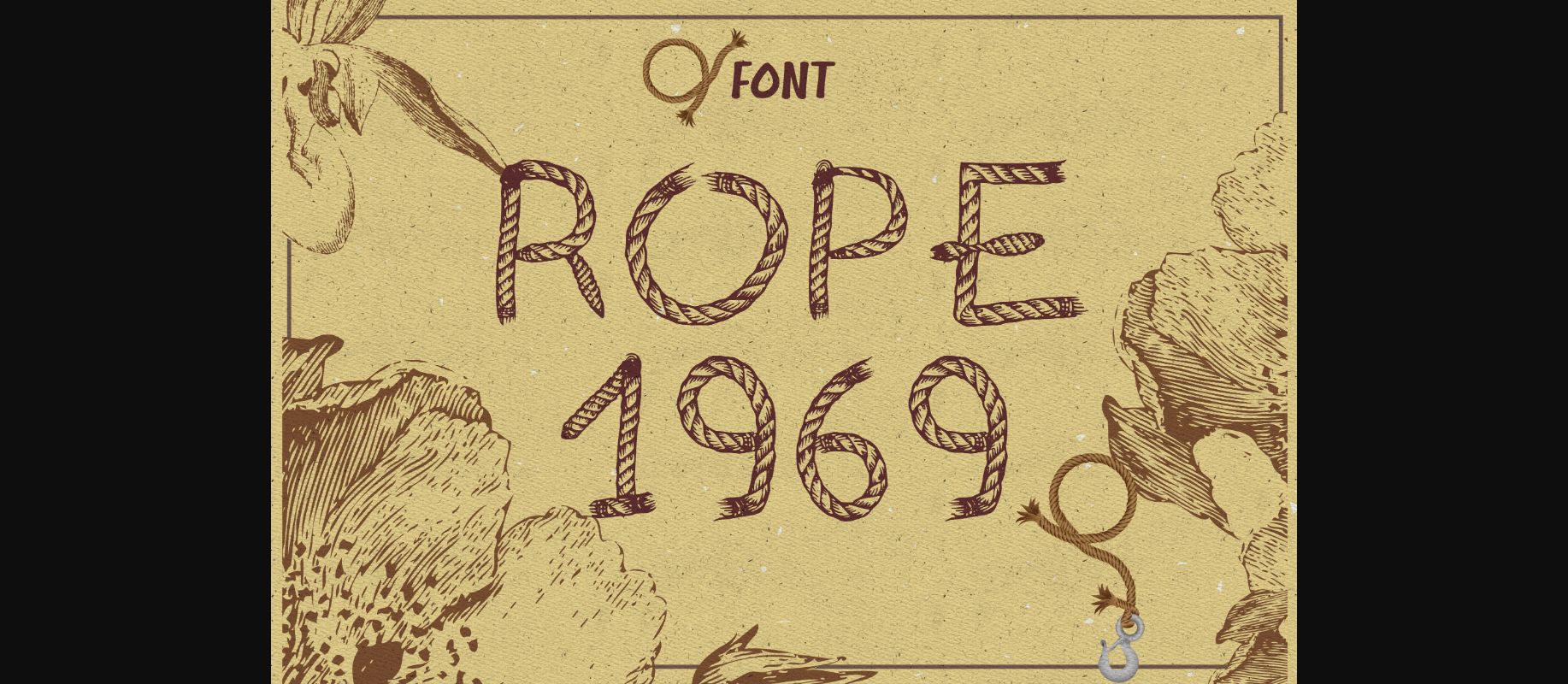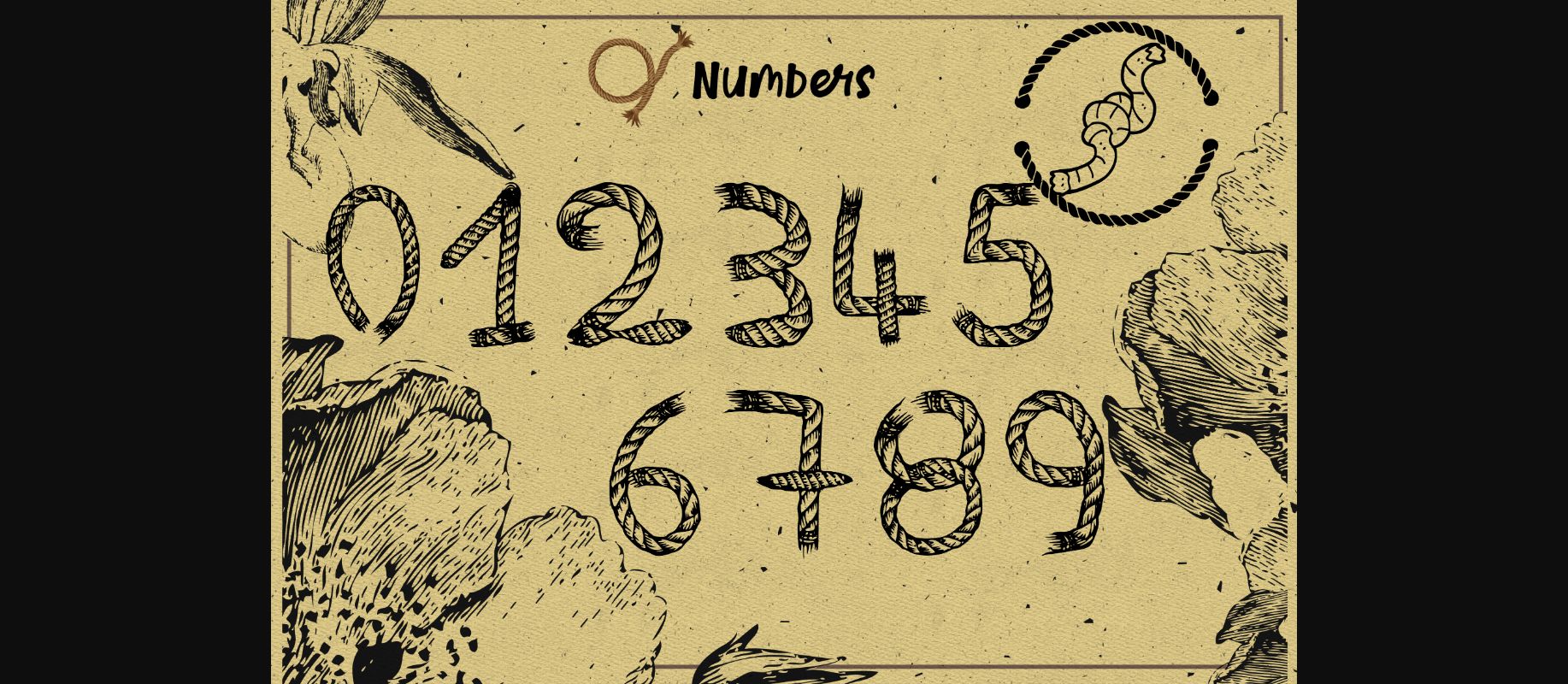
About Rope 1969 Font
If you are looking for rope letters to add to your nautical design, you may have found the ideal solution! Rope 1969 is a decorative script typeface. This font is unique and creative and an incredible asset to your fonts’ library, as it has the potential to elevate any creation.